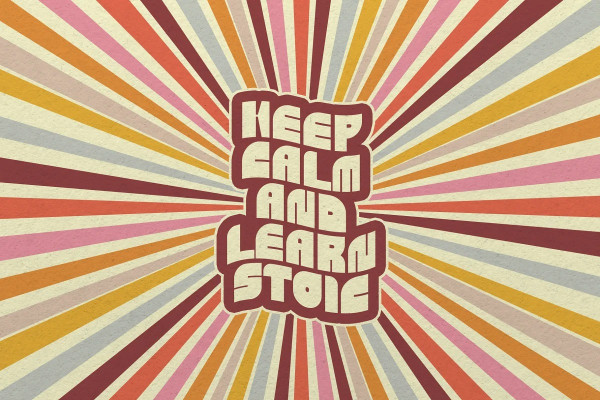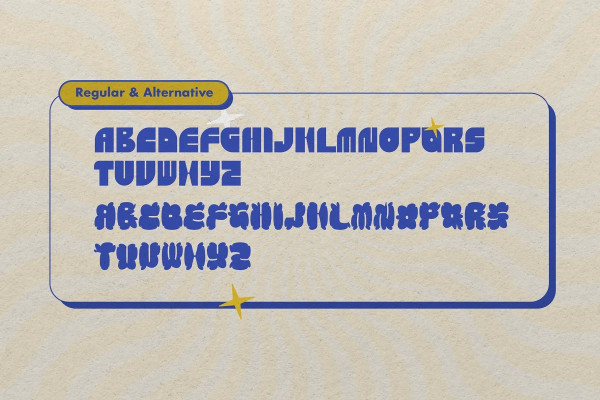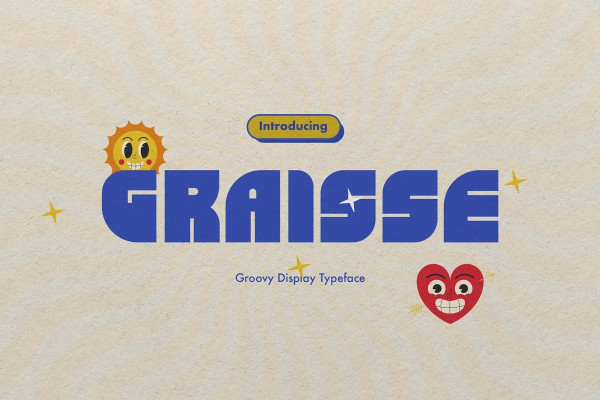
Graisse Font
Graisse Font is a groovy font that brings retro vibes and a vibrant energy to your designs. With its bold and expressive letterforms, it is the perfect choice for eye-catching billboards, captivating advertisements, and impactful posters. The playful curves and stylish details of Graisse  add a touch of nostalgia and a sense of fun to any project. Embrace the free-spirited nature of this font as it commands attention and creates a memorable visual experience. Let Graisse take your designs to new heights and make a lasting impression.